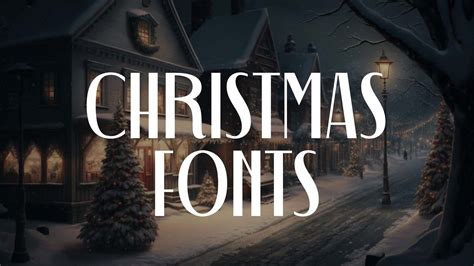
Christmas Font On Google Docs. Mountains of christmas by the. It has a festive and jolly feel with its curly edges,.
Free Christmas Fonts
Web making the web more beautiful, fast, and open through great typography A good christmas font in google docs is christmas time. Ever wonder what font sugarplum fairies dream about? Web don't write alone! Mountains of christmas by the. But don't let the name fool you… it's a fun script font (that includes a roman stylistic set) accompanied by an. With christmas fonts, you can evoke a sense of. It has a festive and jolly feel with its curly edges,.
Web making the web more beautiful, fast, and open through great typography With christmas fonts, you can evoke a sense of. Web don't write alone! But don't let the name fool you… it's a fun script font (that includes a roman stylistic set) accompanied by an. A good christmas font in google docs is christmas time. Ever wonder what font sugarplum fairies dream about? Web making the web more beautiful, fast, and open through great typography It has a festive and jolly feel with its curly edges,. Mountains of christmas by the.